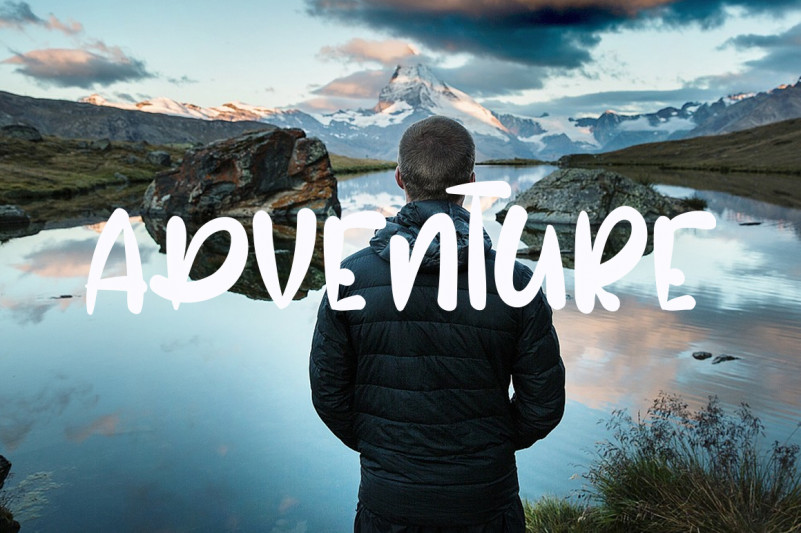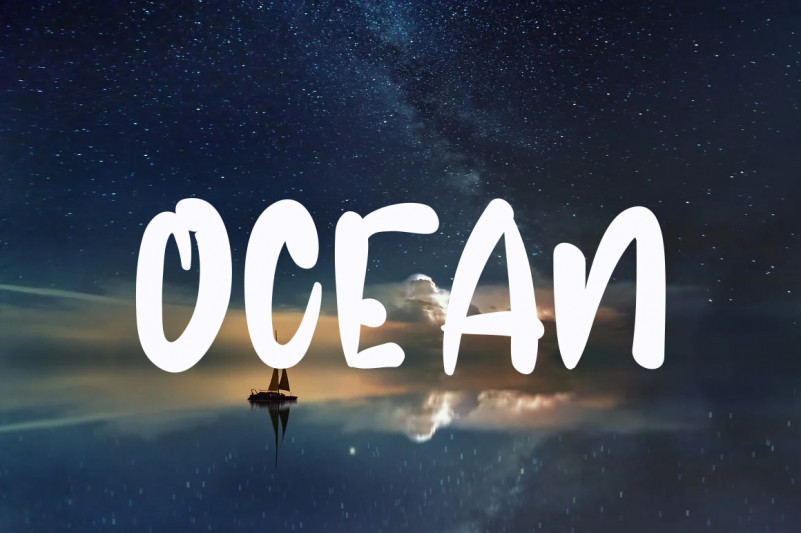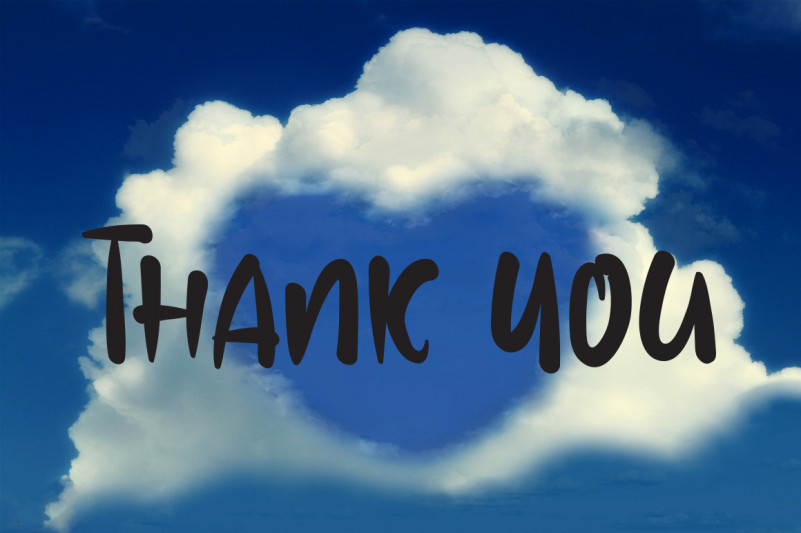
Mountain Font
Mountain Display Font
This is a dainty, genuine and cursive handwritten font. This gentle font will look gorgeous on a variety of design ideas.
levincreative